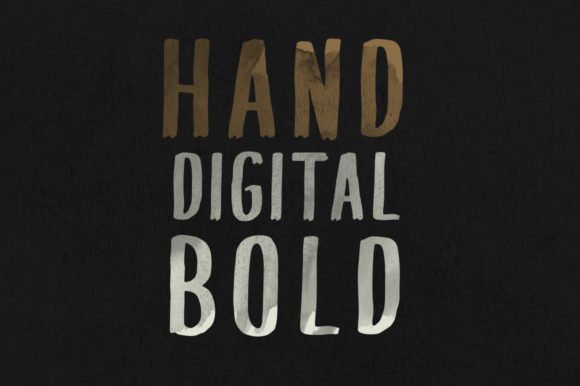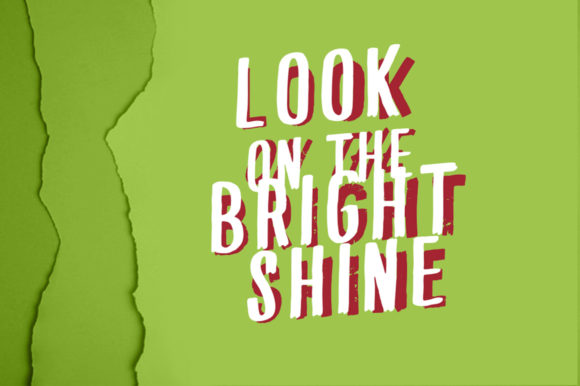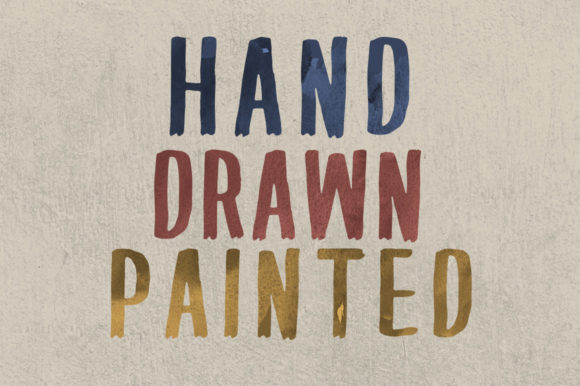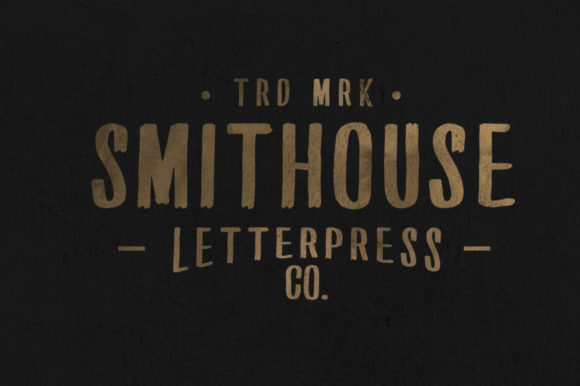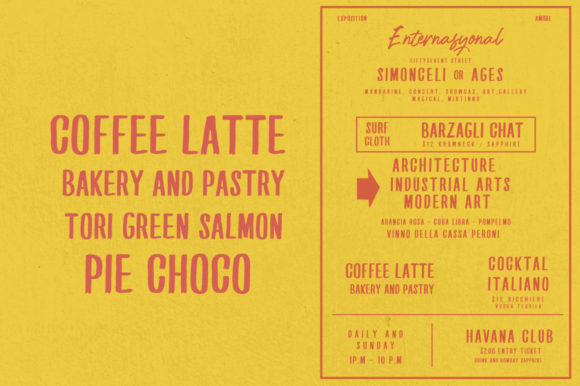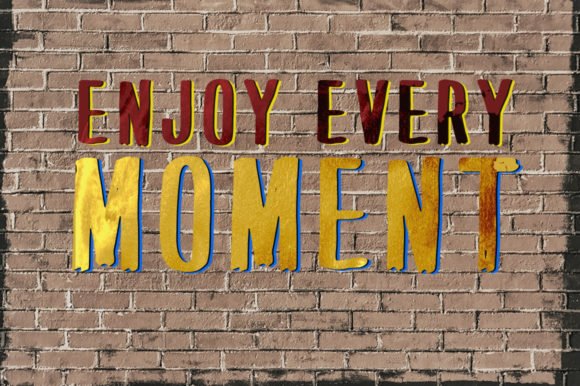
Introduction to PQRS Font
PQRS results out of a stunning pairing of a brush pen and pencil that makes it look incredibly endearing and authentic.
Use this gorgeous and unique display font to bring any DIY project to life .
Key Features of PQRS Font